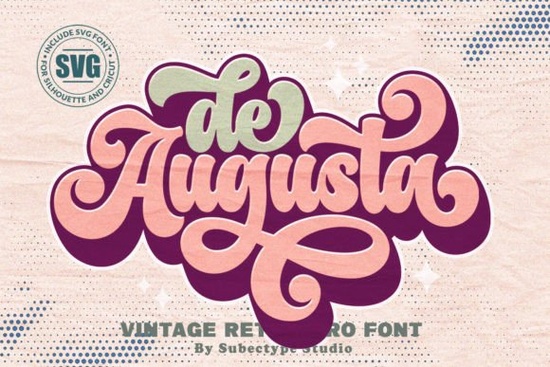
If you're working on a retro-themed project and need a font that captures the bold, expressive spirit of 70s and 80s typography, De Augusta is worth a closer look. This vintage retro font blends old-school lettering styles with a punchy, bold weight that works well across print and digital designs.
Whether you sell on print-on-demand platforms, design logos for local businesses, or just love creating retro art on the side, De Augusta gives you a typeface that feels authentic without looking outdated.
What Makes De Augusta a Good Retro Font?
De Augusta draws direct inspiration from the bold display typography that dominated the 1970s and 1980s. Think vintage concert posters, old signage, classic product packaging, and magazine headlines from that era. The letterforms have that chunky, confident look that retro designs call for, but they're clean enough to stay readable at different sizes.
What sets it apart from many retro fonts is the attention to detail in the character set. It's PUA encoded, which means every glyph, swash, and alternate character is accessible in any design software even programs that don't natively support OpenType features. For crafters using Silhouette or Cricut software, this is a real time-saver.
What Can You Use This Font For?
De Augusta works across a surprisingly wide range of projects. Here are some of the most common uses:
- Badges and emblems The bold style pairs perfectly with circular and shield-shaped badge layouts.
- T-shirt designs Vintage typography sells well on apparel, especially on platforms like Etsy and Redbubble.
- Logo design Ideal for brands that want a nostalgic or heritage-inspired look.
- Poster and flyer design Great for event posters, music flyers, and promotional materials.
- Packaging and labels Works beautifully on product labels, bottle designs, and food packaging.
- Book covers Especially for genres like thriller, mystery, or historical fiction that lean into vintage aesthetics.
- Signage and wall art The bold weight holds up well on signs, both digital and printed.
How Does De Augusta Compare to Other Display Fonts?
There are plenty of bold display fonts out there, but not all of them nail the retro look. If you've browsed display fonts before, you know the difference between something that feels authentically vintage and something that's just thick letters with a retro label.
De Augusta sits in a sweet spot it's bold enough to command attention but has enough stylistic character to feel genuinely rooted in vintage design traditions. For comparison, if you're also exploring chunky summer display typefaces for seasonal projects, or looking at options like a bold bubble-style display font for playful designs, each font serves a different mood. De Augusta specifically targets that warm, nostalgic retro vibe.
Is De Augusta Easy to Work With?
Yes, and that's one of its strongest points. Because the font is PUA encoded, you won't run into the frustrating issue of missing characters or inaccessible alternates. Every swash, ligature, and decorative glyph is right there, ready to use.
- Adobe Illustrator or Photoshop
- CorelDRAW
- Canva
- Silhouette Studio
- Cricut Design Space
In most of these programs, PUA-encoded fonts just work no extra steps needed. You pick the font, access the character map if you want alternates, and start designing.
Who Is This Font Best For?
De Augusta is a solid choice for anyone who regularly creates vintage or retro-style designs. That includes:
- Print-on-demand sellers who need fresh typography for t-shirts, mugs, and posters.
- Small business owners building a brand identity with a retro or heritage feel.
- Graphic designers working on packaging, signage, or editorial layouts.
- Crafters and hobbyists making signs, wall art, or party decorations with a vintage twist.
- Think about your project needs De Augusta is best suited for bold, retro, vintage, and badge-style designs.